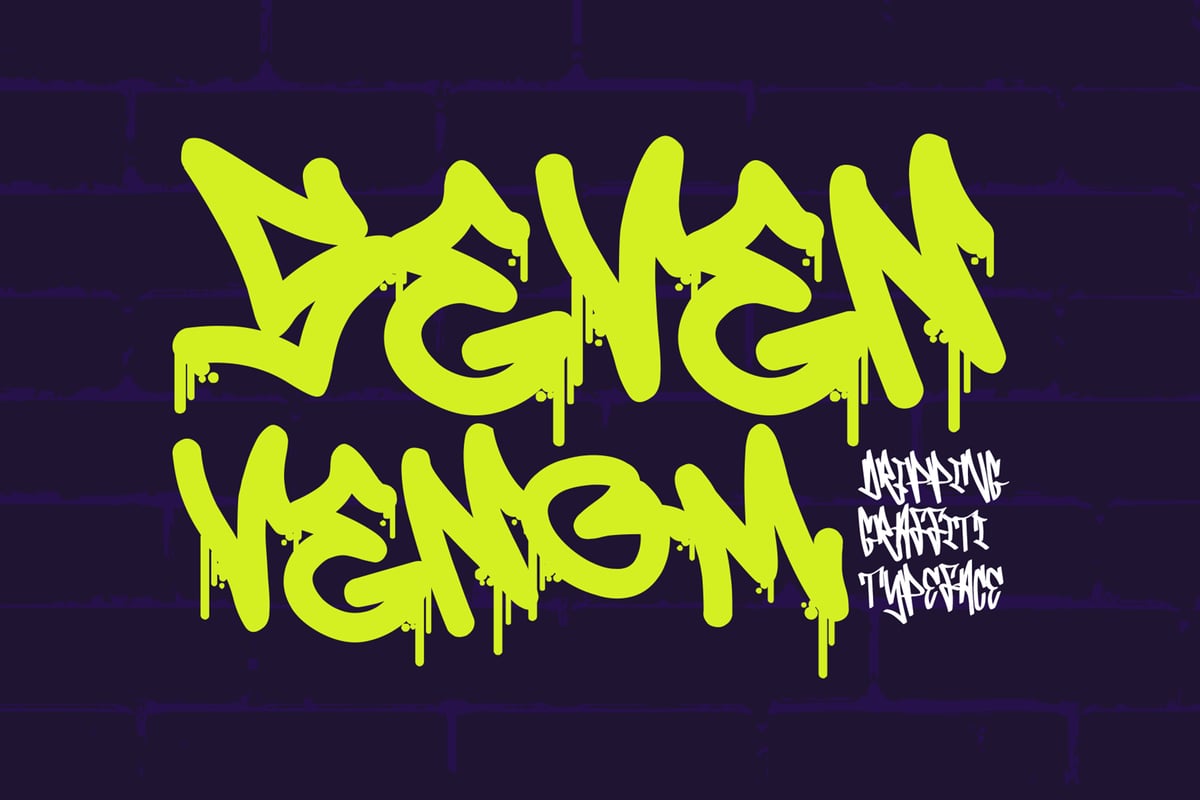
Seven Venom
Seven Venom is a bold and intense graffiti font, featuring a unique dripping effect that brings raw street art to life. Its striking design oozes attitude, making it perfect for designs that demand attention and leave a lasting impression.